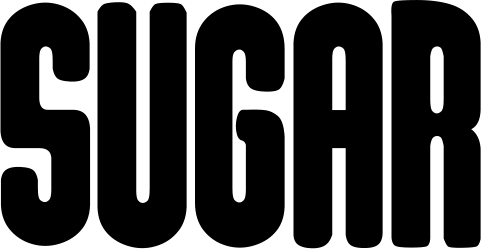
Sugar Font
Sugar is a rounded font that has bold, tall, rounded characters. Looking at Sugar, you feel this cartoony vibe that makes it a perfect choice to feature in your cartoons and comic books. You have it in 2 different styles…
Sugar is a rounded font that has bold, tall, rounded characters. Looking at Sugar, you feel this cartoony vibe that makes it a perfect choice to feature in your cartoons and comic books. You have it in 2 different styles consisting of uppercase, numerals, and punctuation marks. Apart from cartoons, you can also use Sugar in posters, invitations, games, and more.